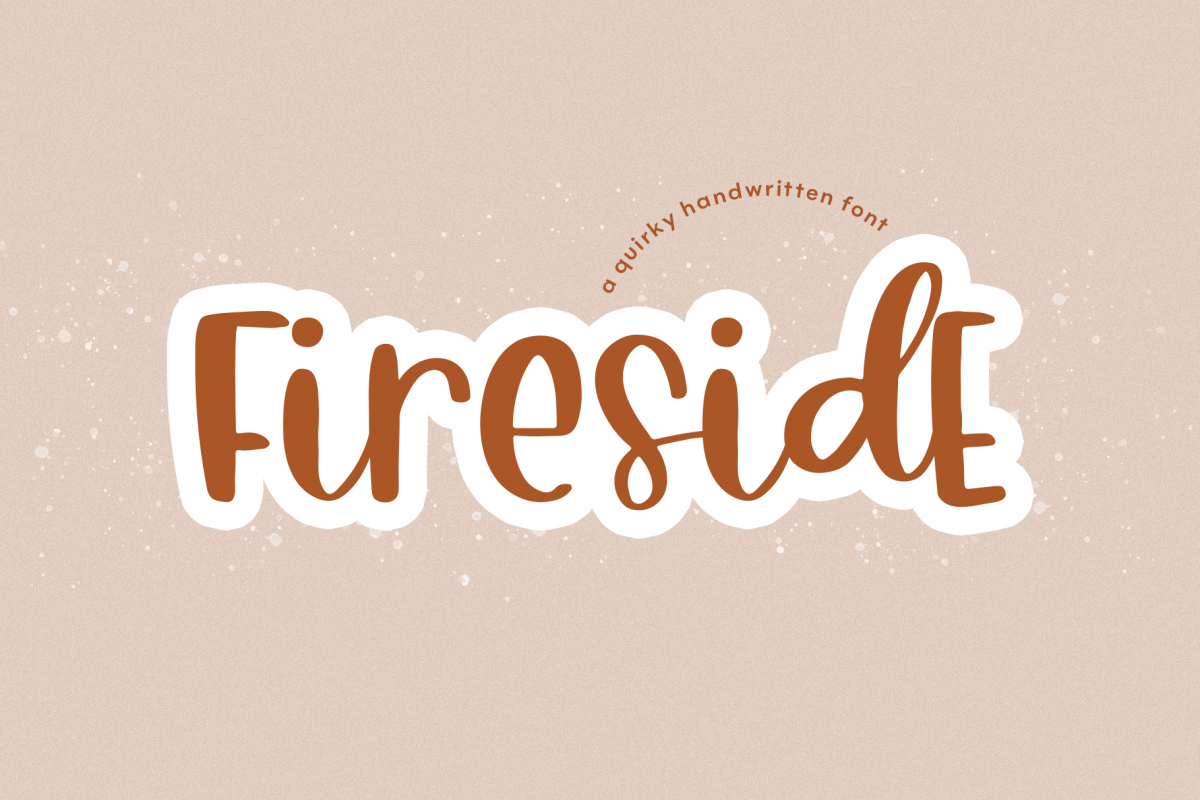
Fireside - A Quirky Handwritten Font
Fireside
Fireside is a fun & quirky handwritten font!
This font is perfect for quotes, shirt designs, websites, branding, children's designs,  blogs, logos, invitations and more!